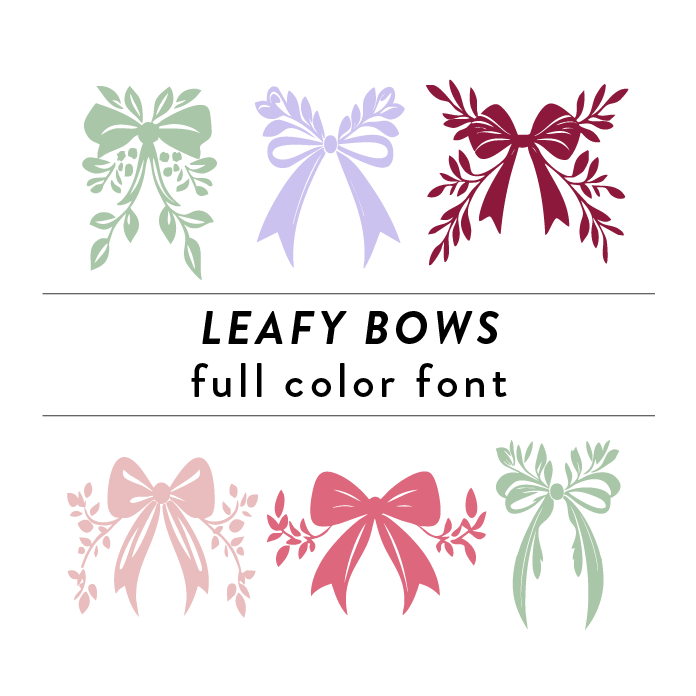
Leafy Bows Full Color Font is a whimsical and elegant font design inspired by nature. It features intricate leafy branches and delicate bows, perfect for wedding invitations and engagement announcements. This unique font adds a touch of charm and sophistication to any project in need of a romantic and nature-inspired aesthetic.